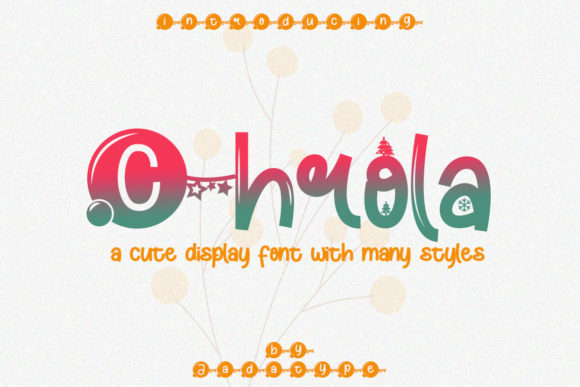
Get ready to unleash your child's imagination with Chrola Font, the ultimate display font designed to bring a touch of youth and joy to all your creative endeavors. This enchanting font family, brought to you by jadatype, is a whimsical blend of playful curves and charming details that will captivate the hearts of kids and adults alike.
Chrola Font is more than just a font; it's a gateway to a world of creativity and expression. Its playful characters will ignite your child's imagination, encouraging them to explore their artistic side. From whimsical party invitations to enchanting storybooks, Chrola Font will transform your designs into captivating masterpieces that will delight and inspire.
Immerse yourself in the world of Chrola Font and discover the endless possibilities that await. Its versatility knows no bounds, making it the perfect choice for a wide range of projects. Whether you're creating eye-catching posters that demand attention or designing heartwarming greeting cards that convey your love, Chrola Font will elevate your designs to new heights.
With Chrola Font, every word becomes a vibrant brushstroke, painting a picture that captivates the imagination. Its playful spirit will sprinkle a touch of magic into your designs, making them impossible to resist. Download Chrola Font today and embark on an artistic adventure that will bring smiles to faces and create memories that will last a lifetime.